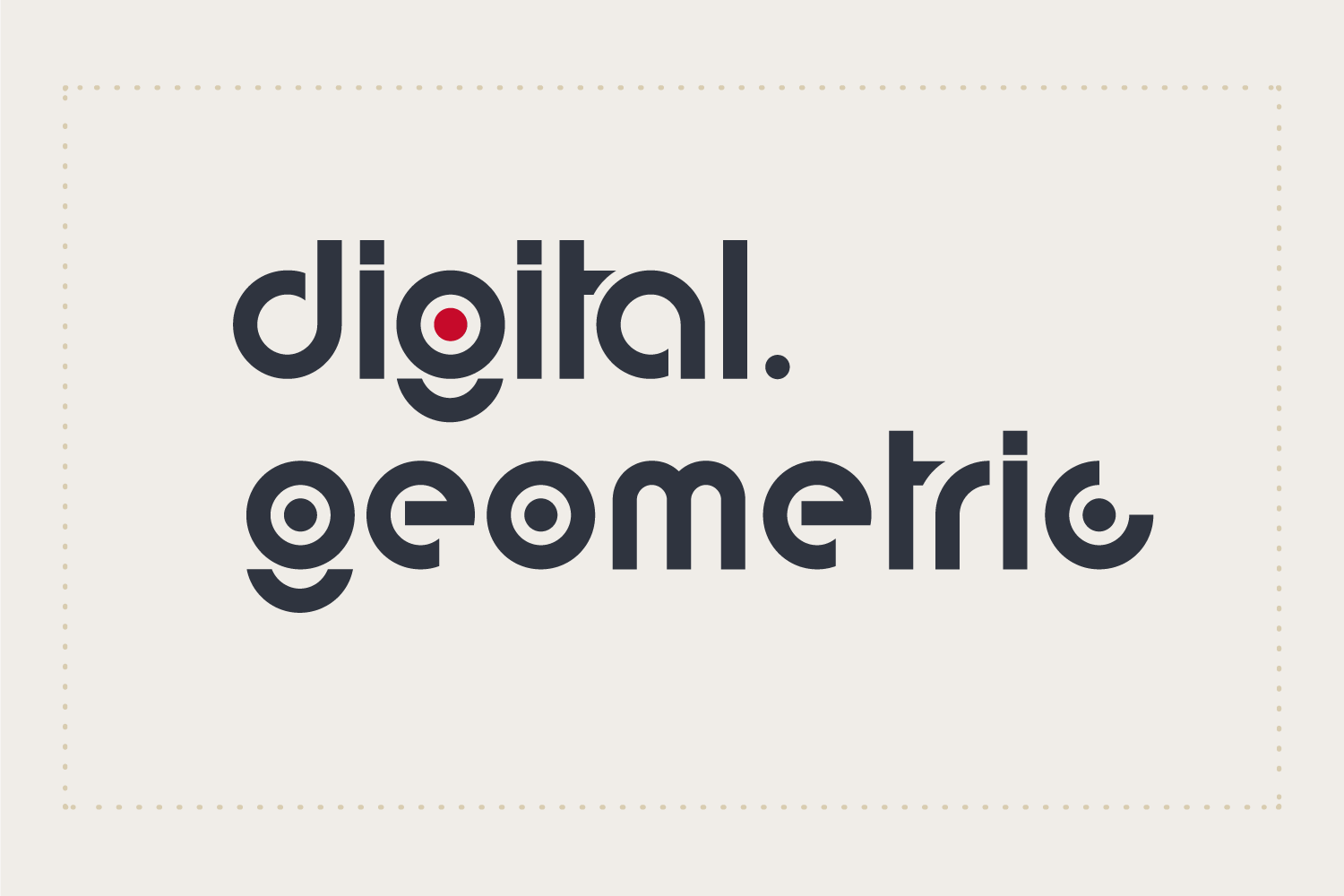
Digital Geometric Font
Digital Geometric Font is a fresh, geometric, sans-serif font family. The geometric, near-monoline construction lends a classic durability, tempered by softened edges and vibrant shapes. Friendly and charismatic in lowercase; sophisticated and authoritative in uppercase.
Hard lines and sharp corners mesh with smooth, rounded letterforms, while humanist nuances add warmth. Digital Font is versatile and can be successfully used in Magazines, Posters, Branding, Websites etc.